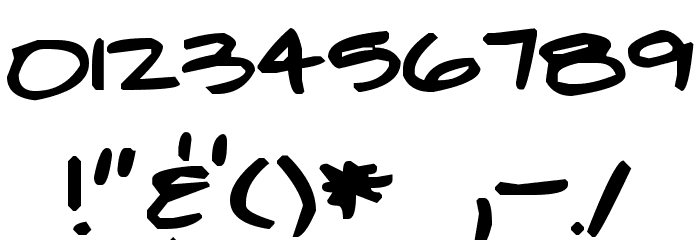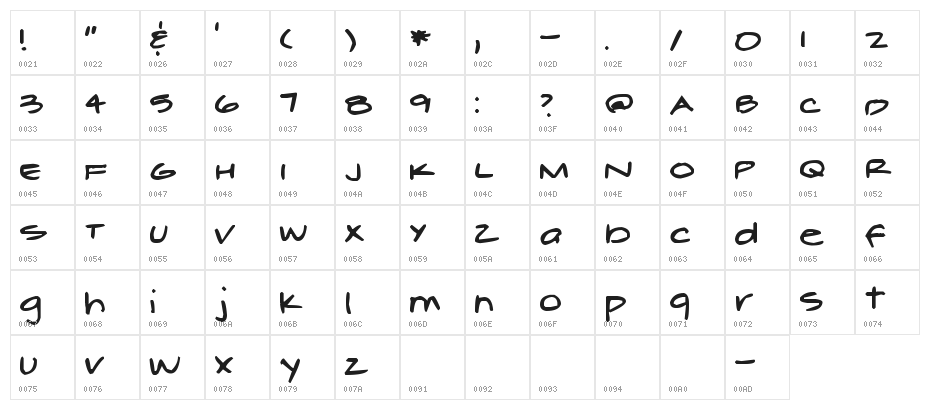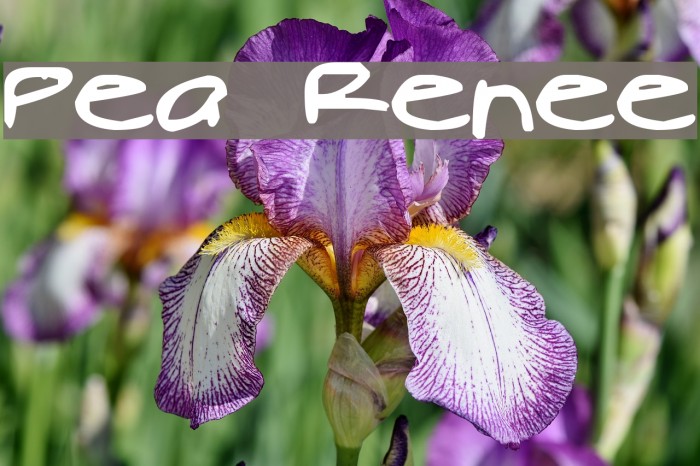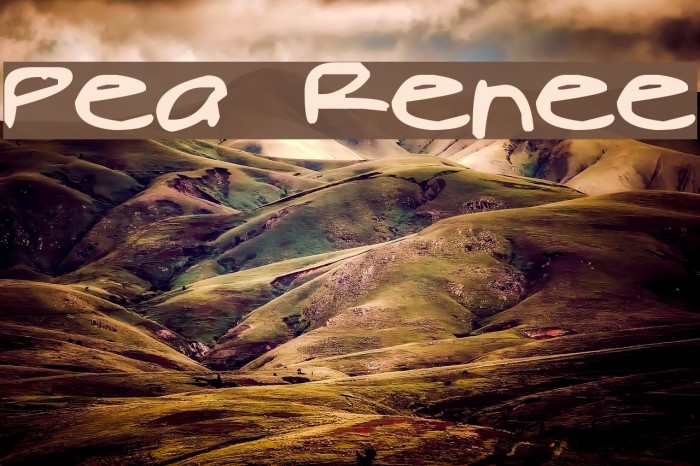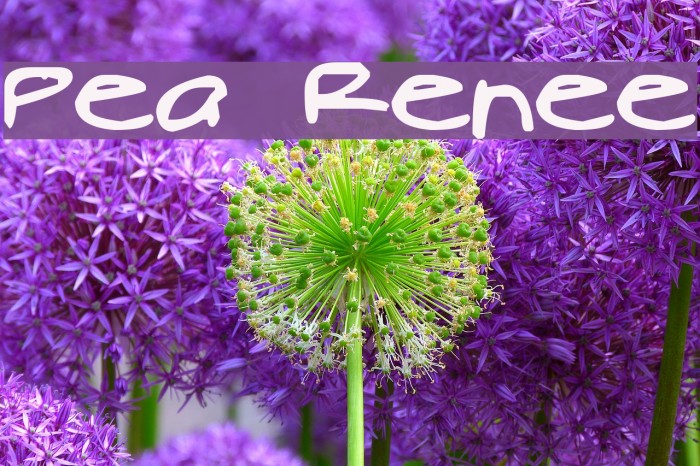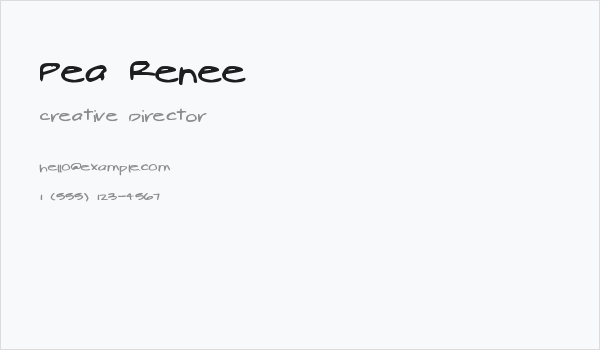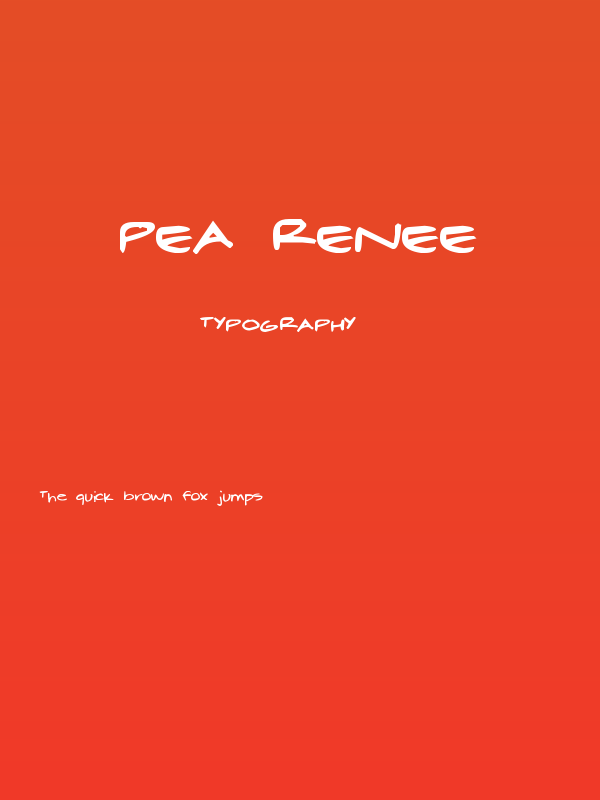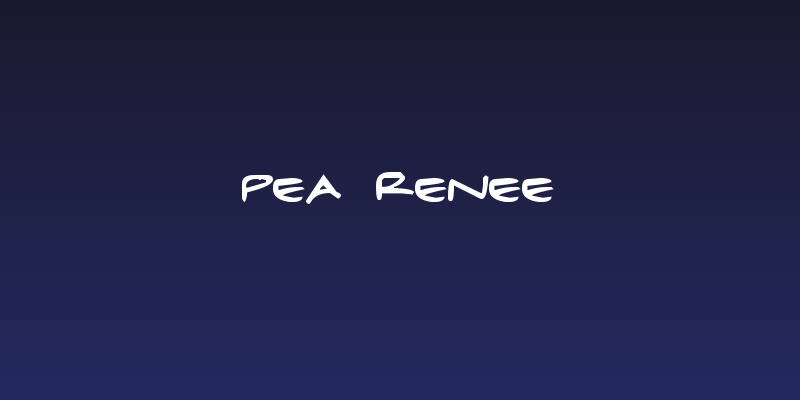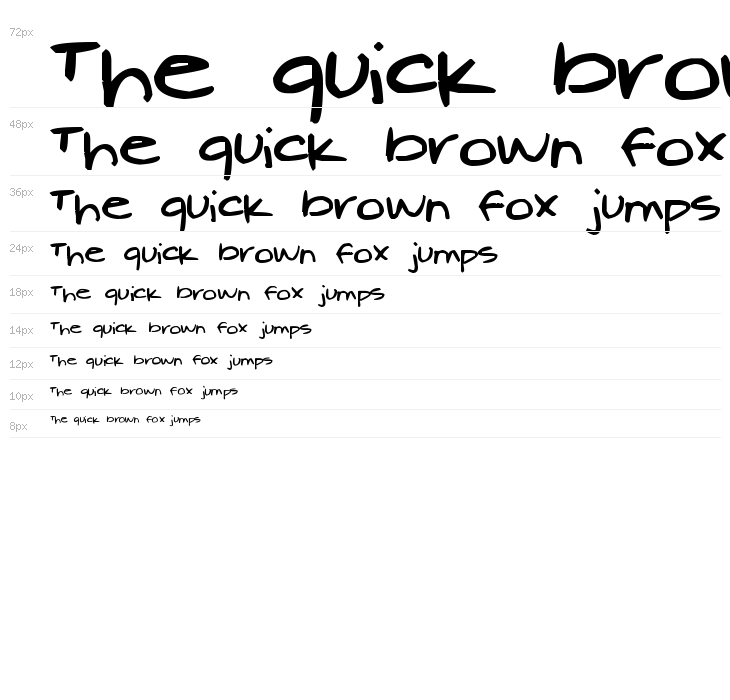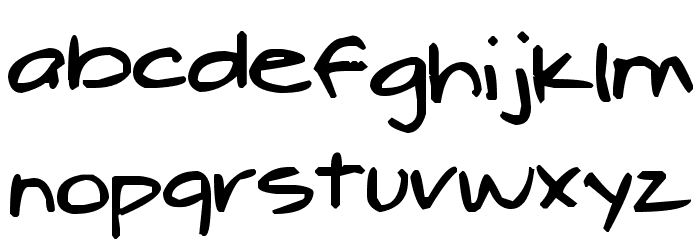
Pea Renee Font
Pea Renee Description
This font features a playful and casual handwritten style, characterized by its smooth, flowing lines and slightly irregular shapes. The letters are bold and rounded, giving it a friendly and approachable appearance. The uppercase and lowercase letters maintain a consistent style, with a slight slant that adds to the informal feel. Numbers and special characters are designed to match the overall aesthetic, ensuring a cohesive look across all text elements. This font is perfect for projects that require a personal touch, such as invitations, greeting cards, or creative branding materials.